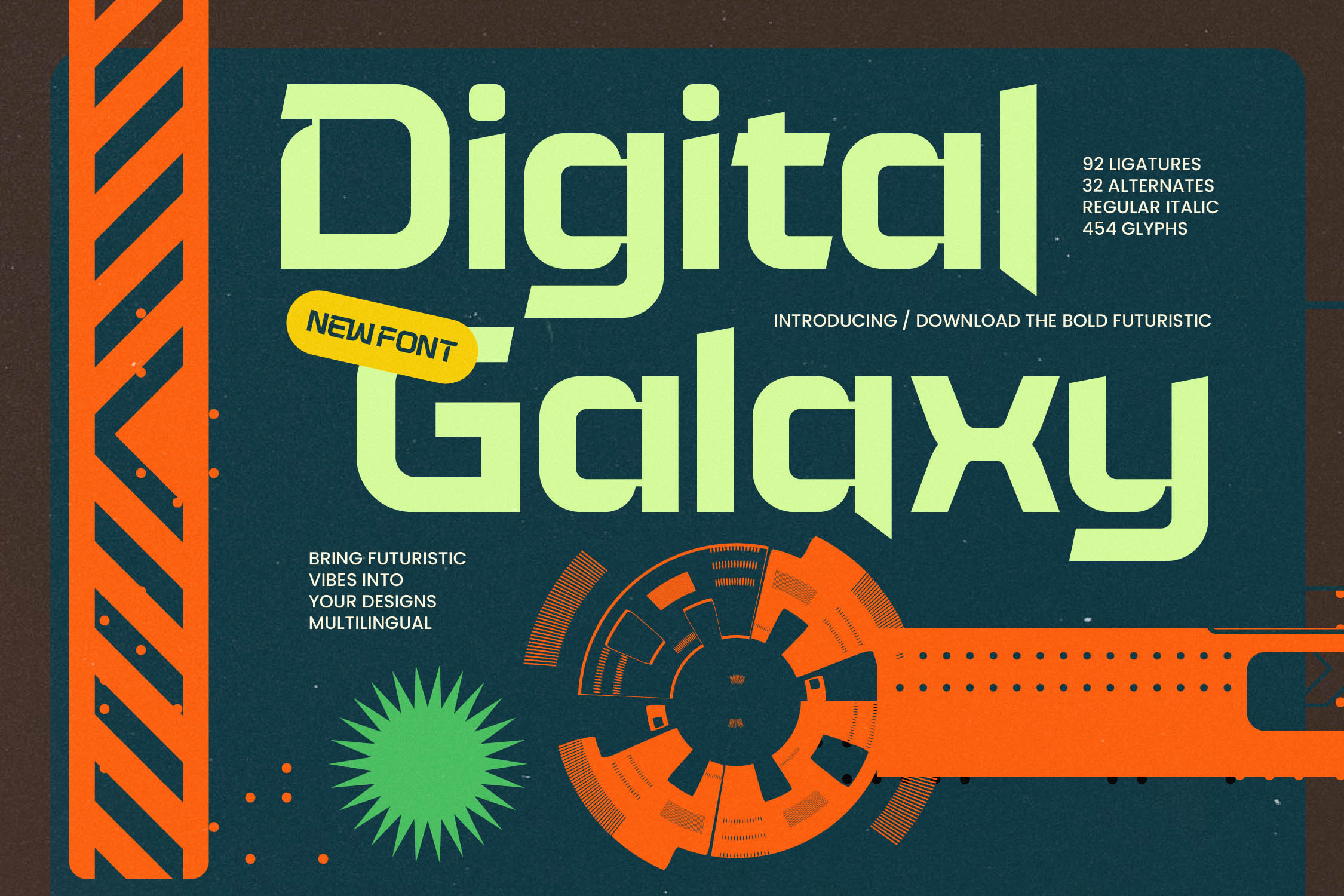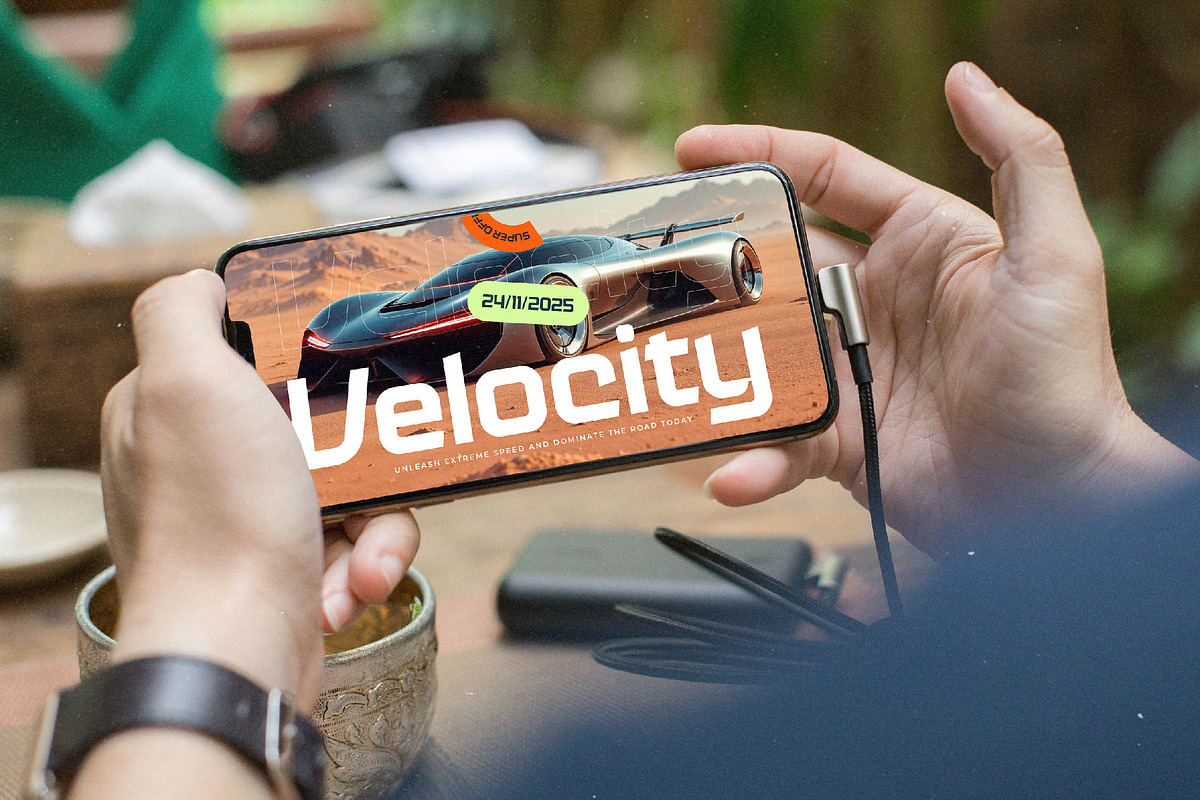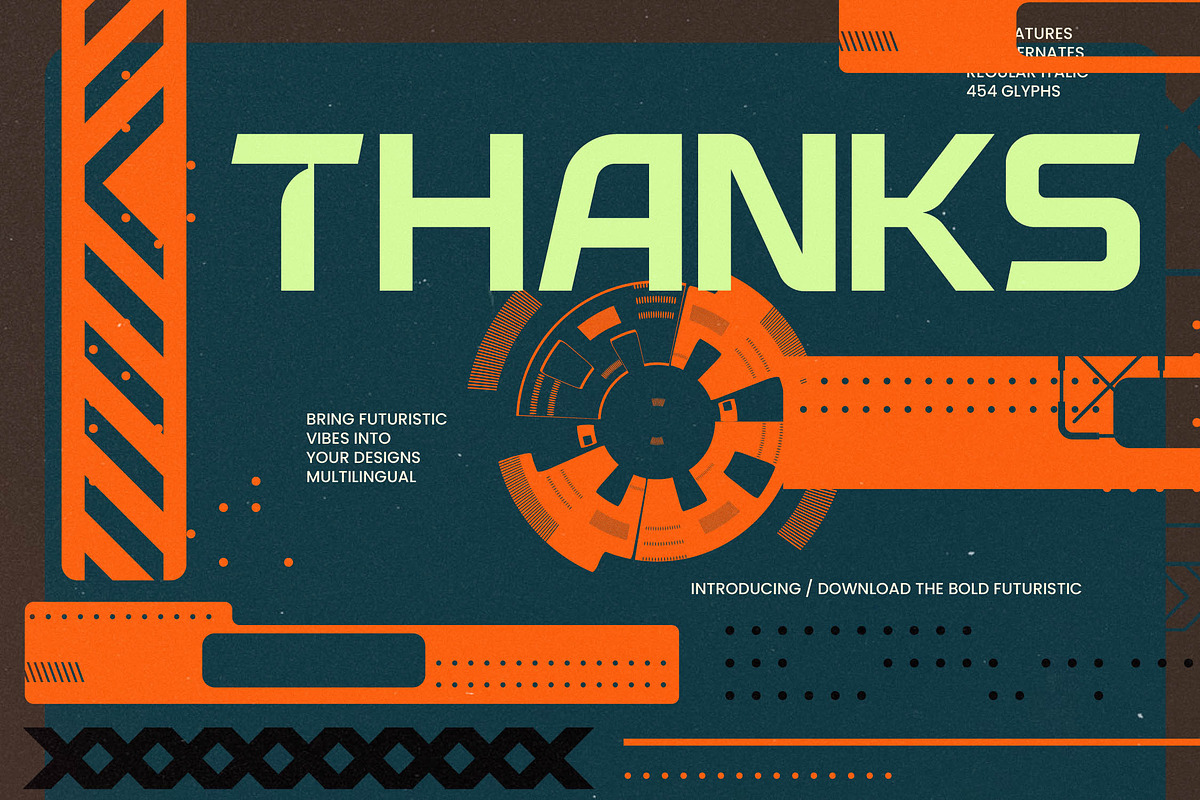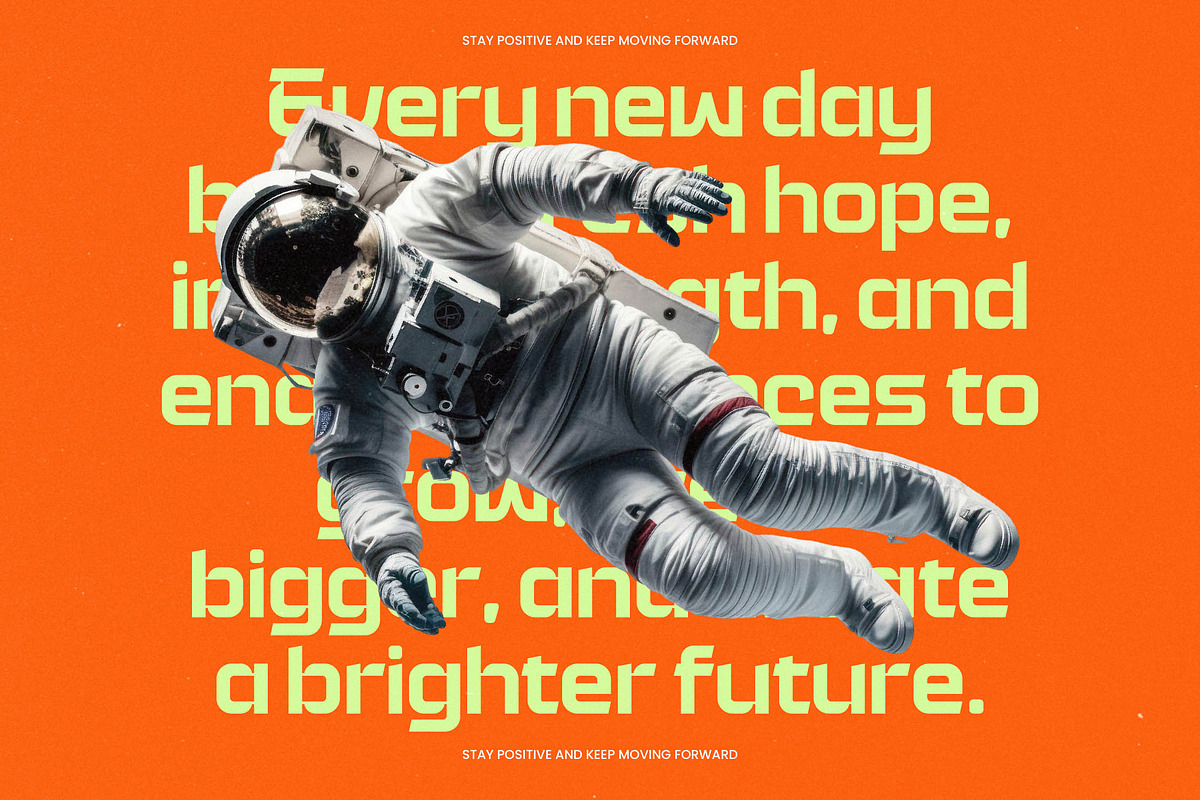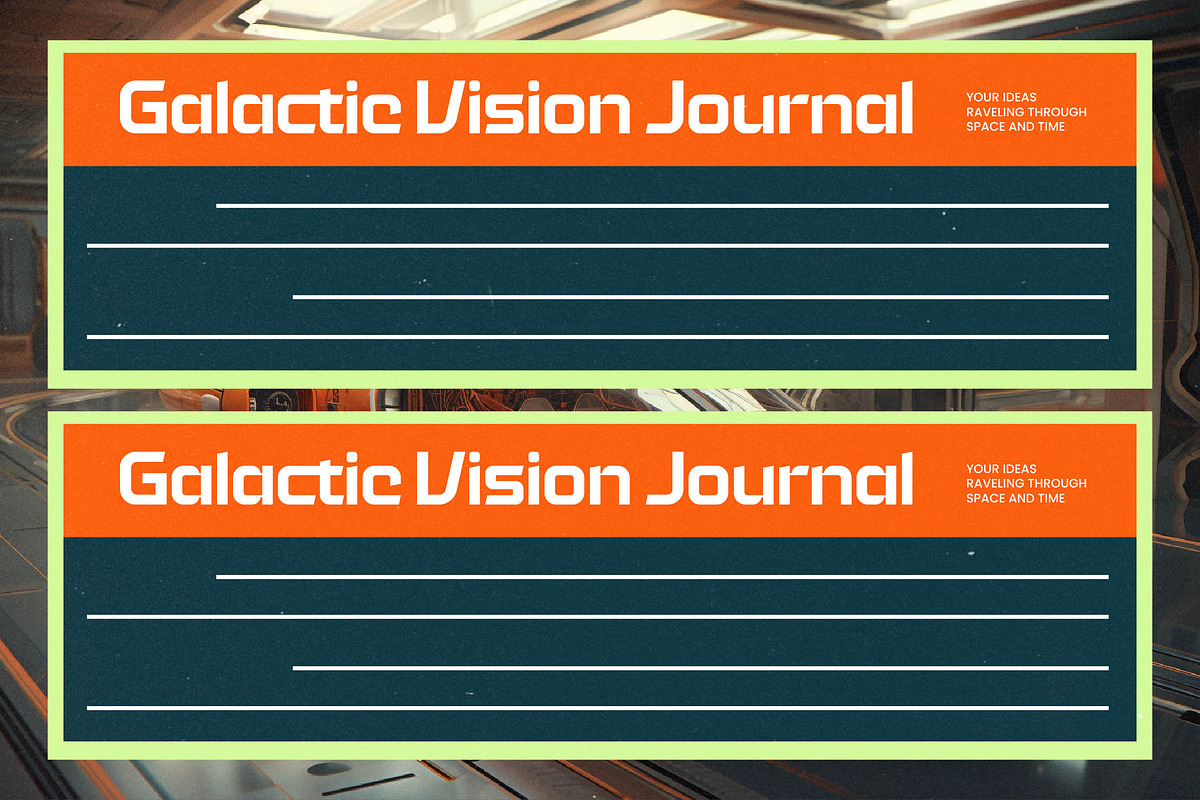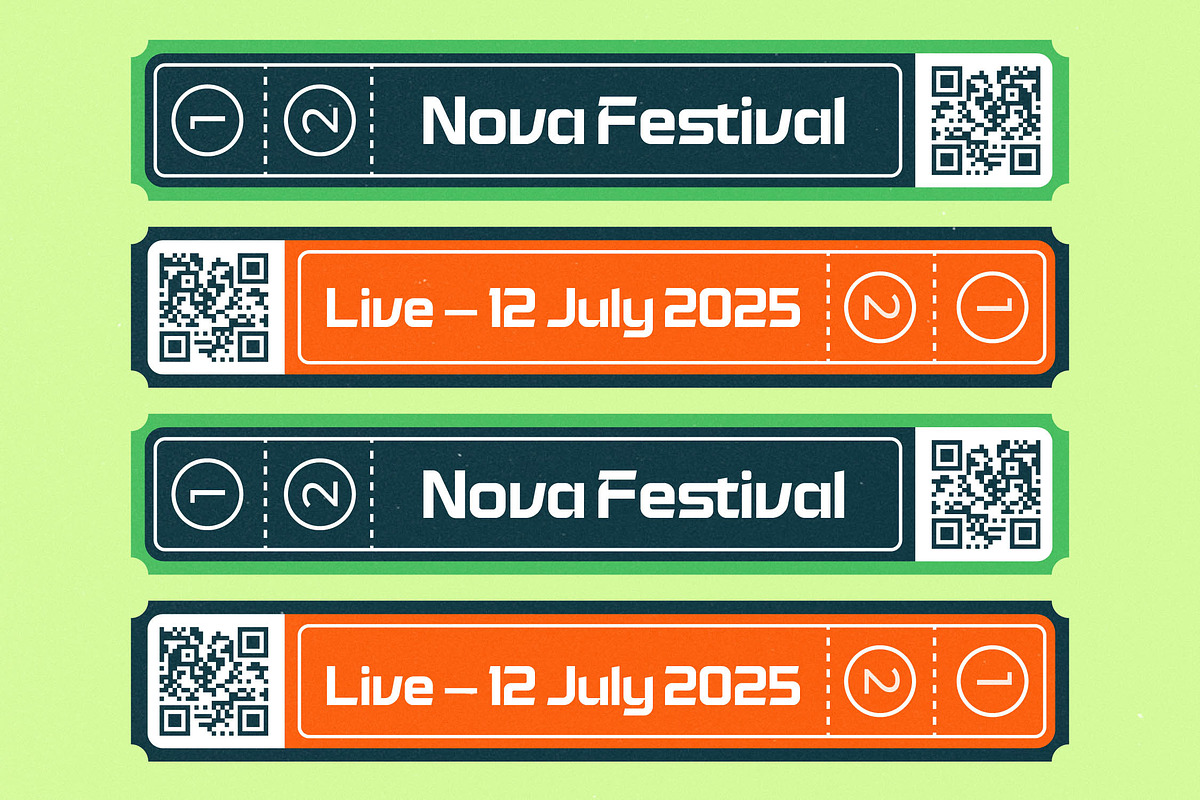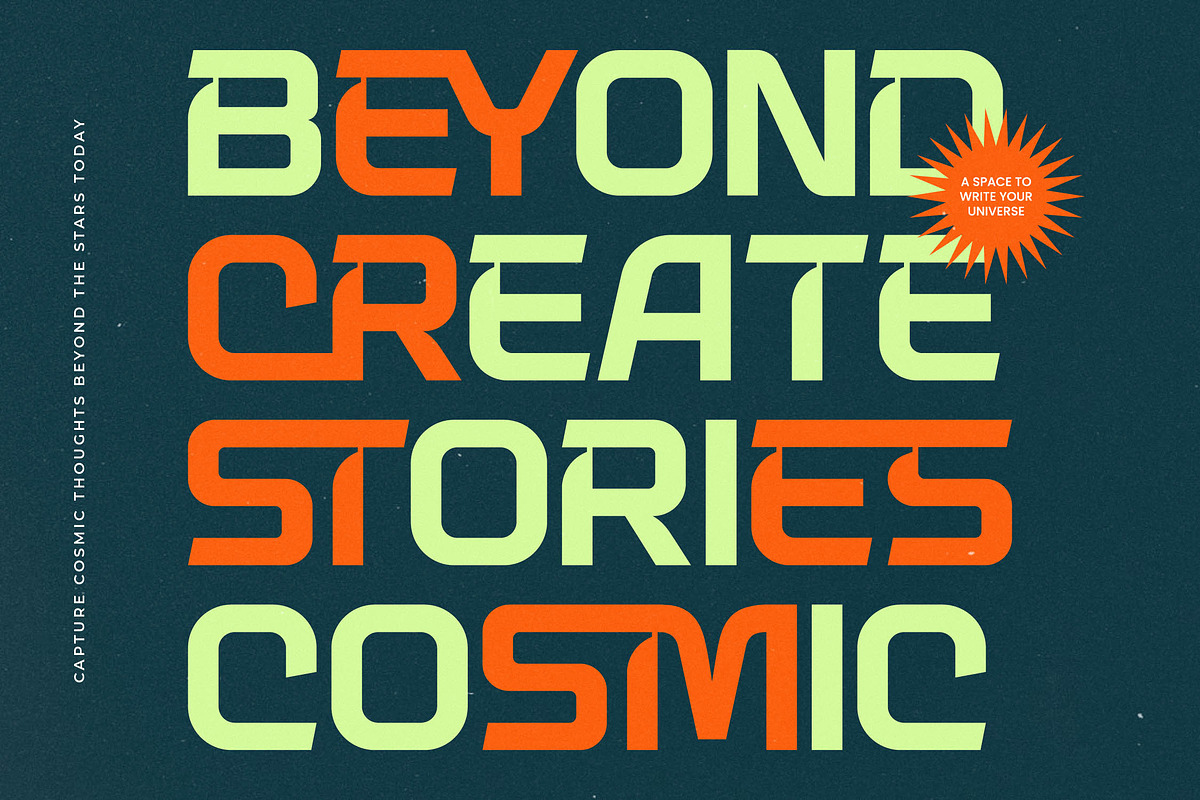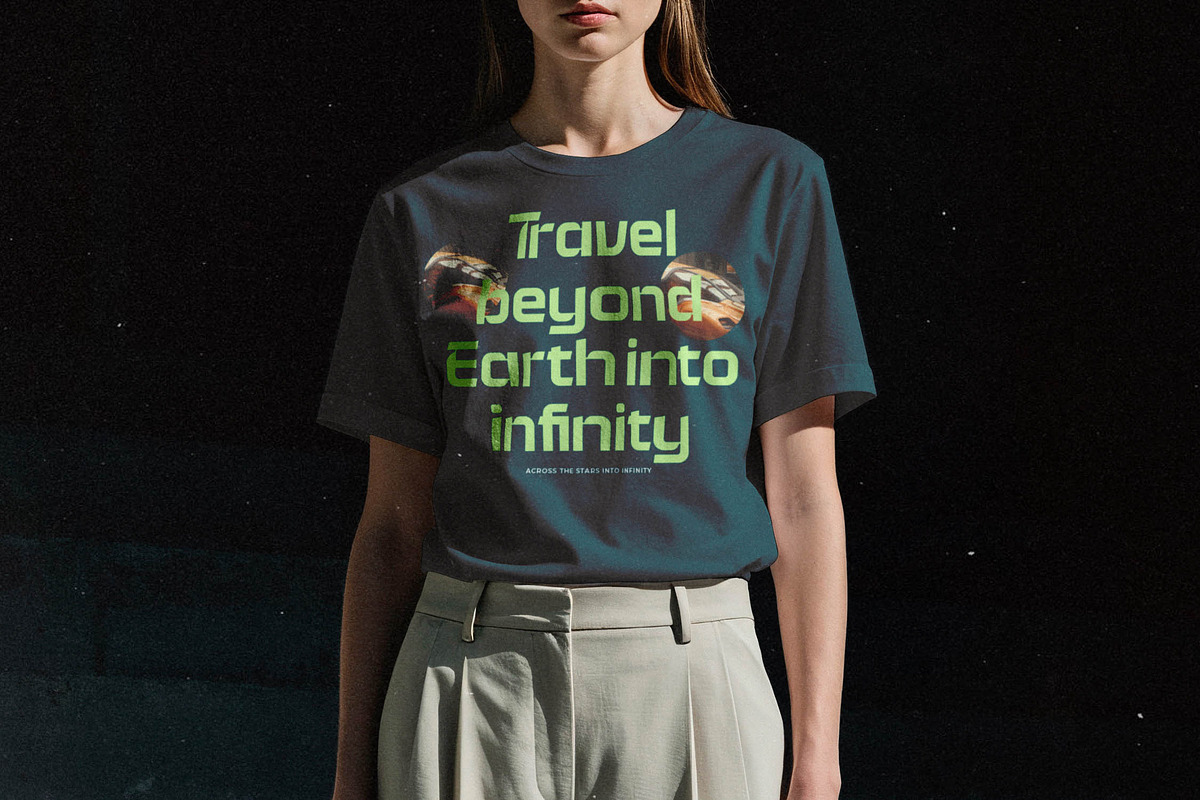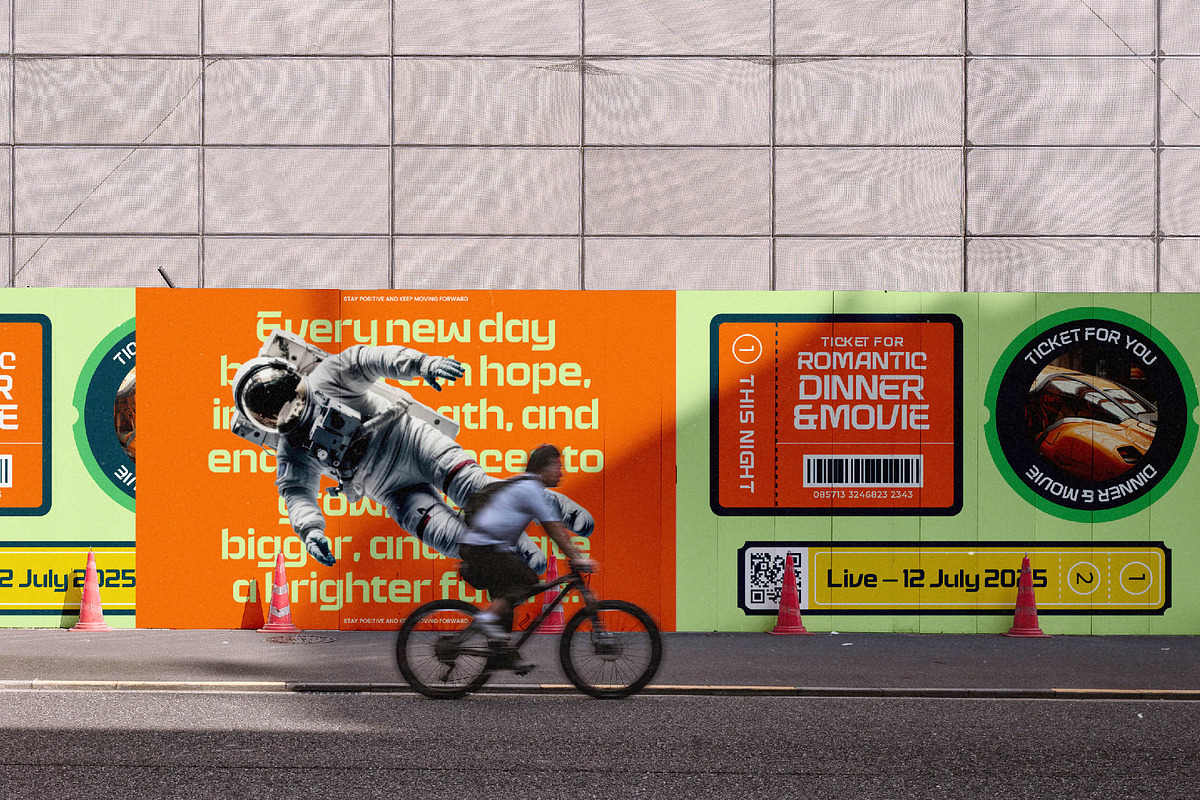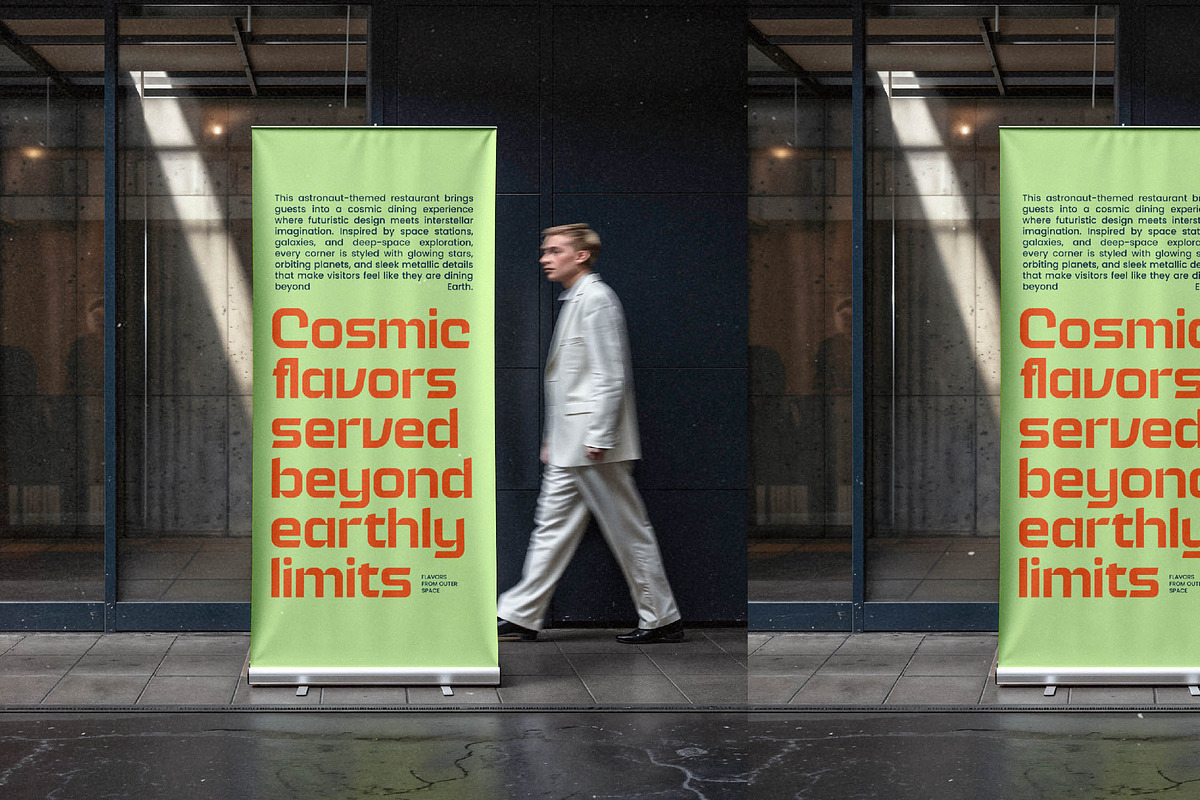
Digital Galaxy Futuristic Font
Step into the next dimension of design with the electrifying presence of Digital Galaxy, a typeface that captures the raw energy of interstellar exploration. It is crafted for creators who want to push the boundaries of visual storytelling and command immediate attention in a crowded digital landscape.
Drawing inspiration from high-tech control panels and the sleek aesthetics of retro-futurism, this font balances geometric precision with a fluid, organic motion. Every letterform is a testament to progress, evoking the atmosphere of deep-space voyages and the sophisticated interfaces of a civilization yet to come.
Built for maximum branding impact, this modern serif display alternative provides a unique take on luxury typography. While it breaks the traditional mold, it functions as a premium editorial font with the sharp, commanding presence of a high-contrast serif, ensuring your message is delivered with unparalleled authority and style.
As the modern serif trend transitions toward more experimental and digital forms, this typeface stands at the forefront of editorial display fonts. It represents the pinnacle of character-driven typography, meeting the rising demand for tech-infused aesthetics in contemporary graphic design and high-end digital media.
This versatile powerhouse is the ultimate tool for cutting-edge logo design and comprehensive corporate branding initiatives. Whether you are developing high-concept packaging, avant-garde fashion campaigns, or specialized editorial layouts, it even adds a unique, modern edge to a tech-themed wedding invitation or exclusive event stationery.
The professional package includes over 450 glyphs, featuring a rich library of ligatures and alternates to provide endless creative possibilities for your layouts. With complete multilingual support and international characters, along with its bold futuristic core rather than traditional swashes, it ensures your global projects are executed with seamless professional quality.